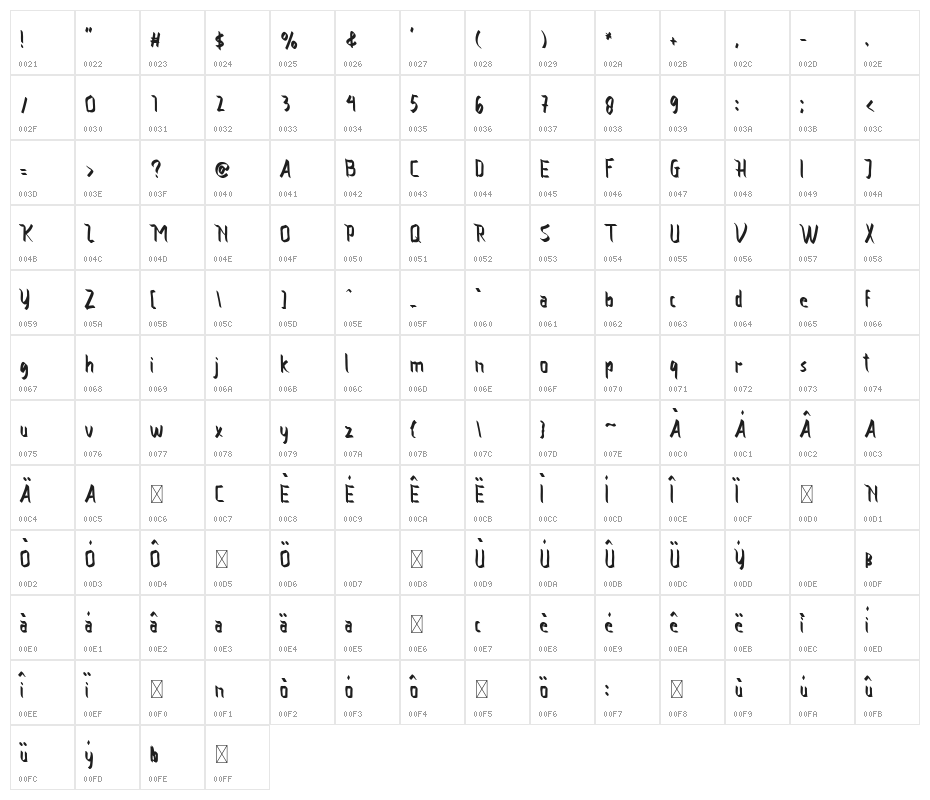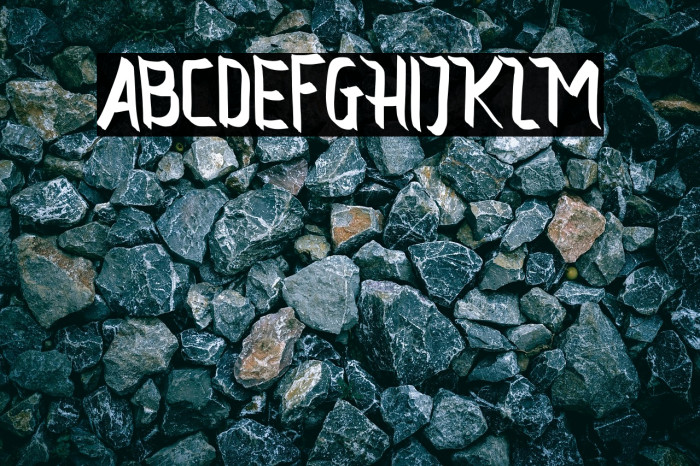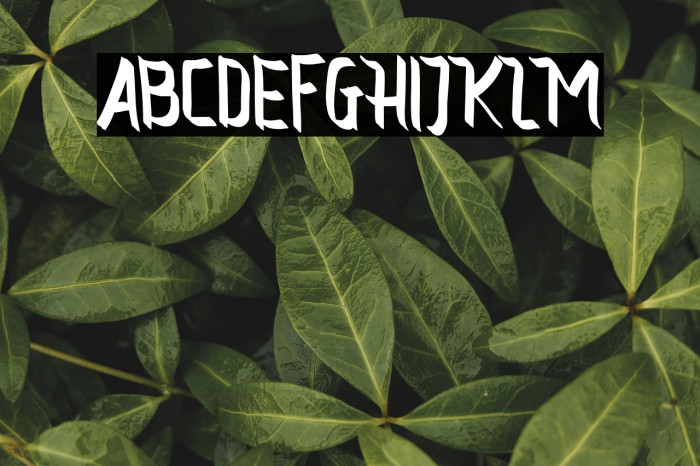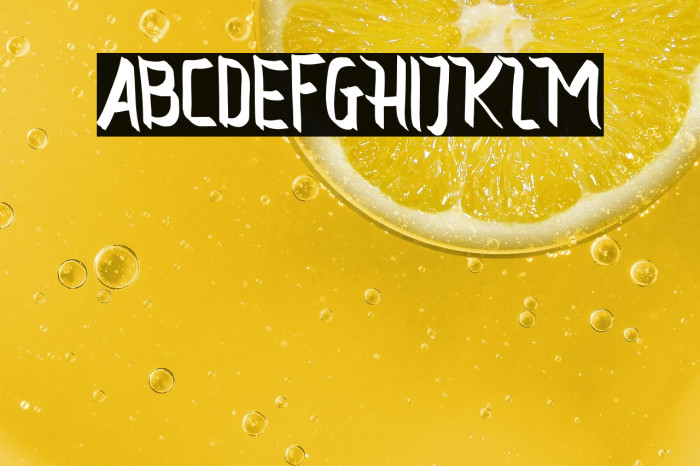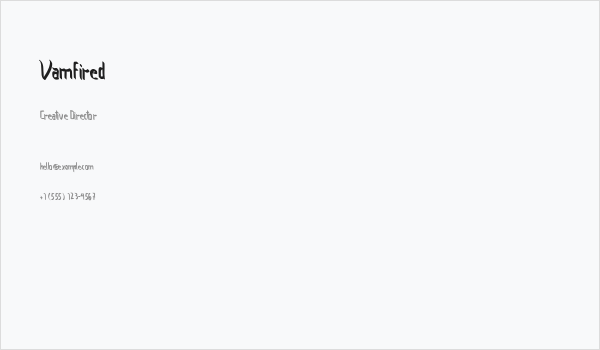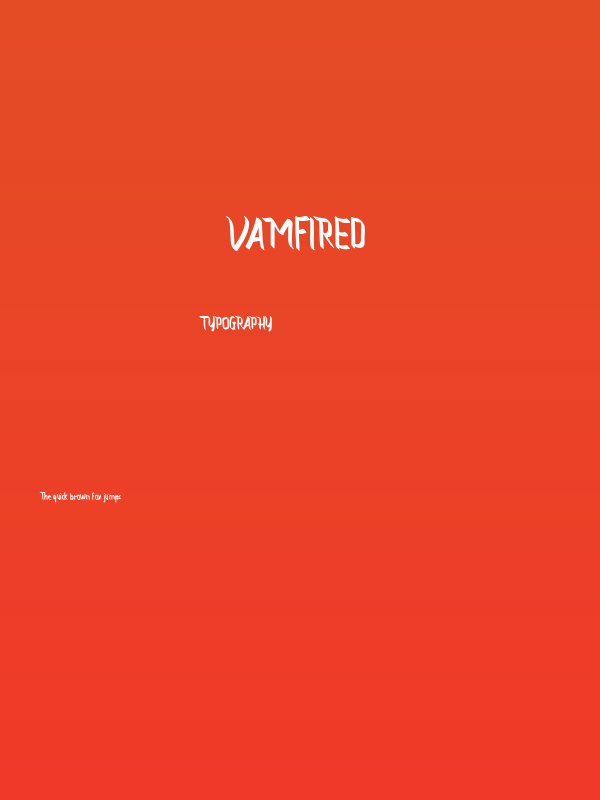
Vamfired Font
Vamfired Description
This font features a bold and dynamic style with sharp, angular edges and a slightly irregular form that gives it a hand-drawn appearance. The uppercase letters are tall and narrow, while the lowercase letters maintain a consistent height, creating a cohesive look. The numbers are distinct and easily readable, with a similar angular design. Special characters are well-integrated, maintaining the overall aesthetic. The font's unique style makes it stand out, suitable for projects that require a strong visual impact.
| Overall Style | Modern, Artistic |
| Proposed Projects | Ideal for posters, album covers, branding, and any project needing a bold, artistic touch. |